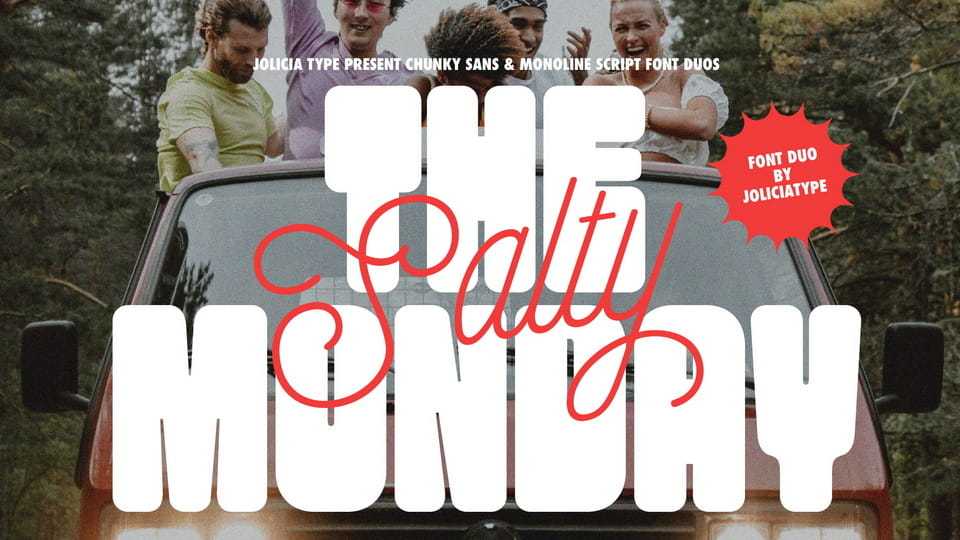
Download The Salty Monday font, a dynamic typeface combining a bold, chunky sans with a smooth monoline script to create a striking and versatile typeface.